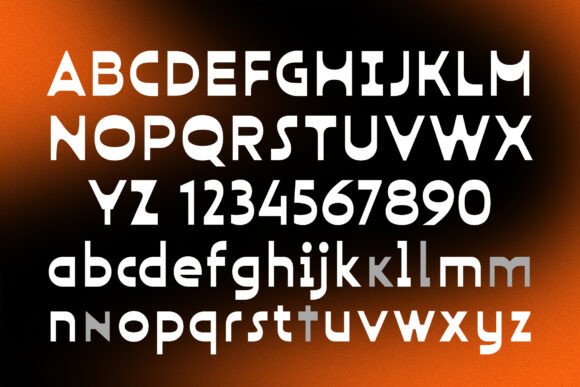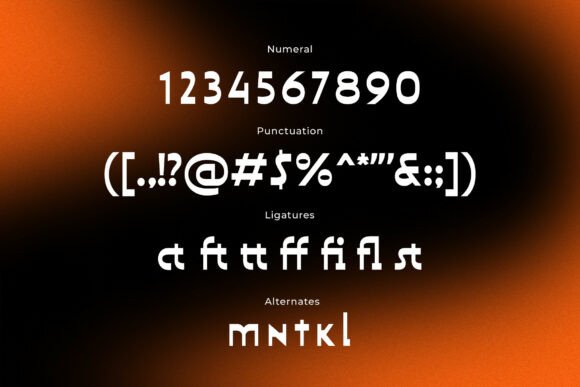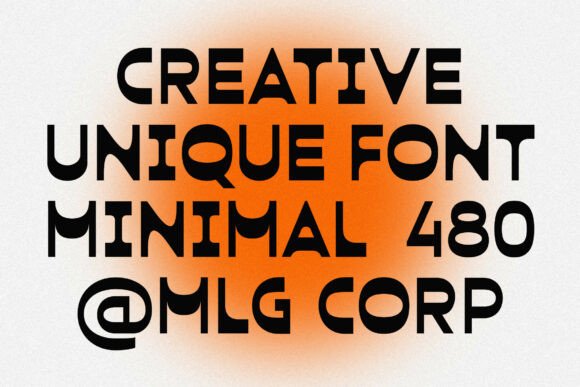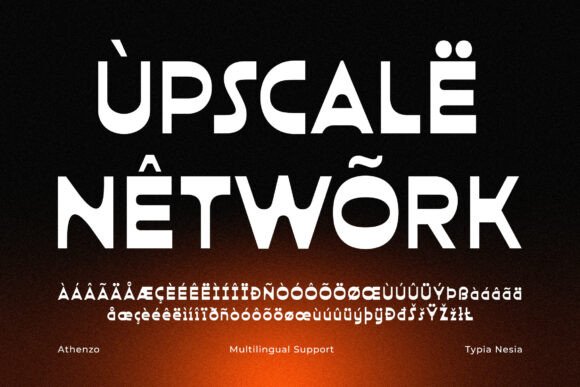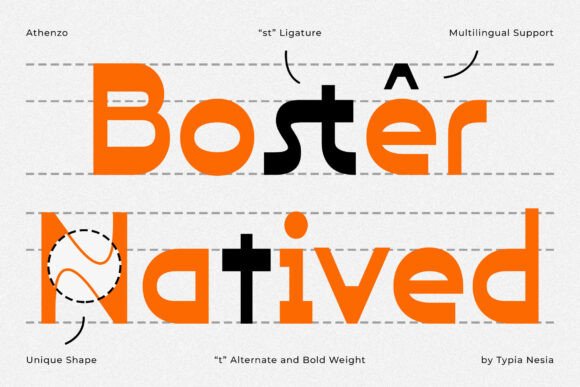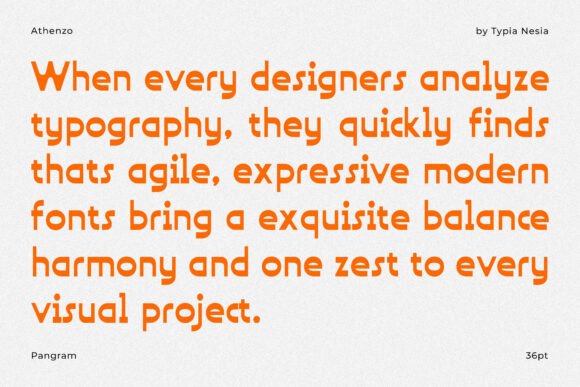
Unlock Your Creativity with the Altenzo Font
Have you ever been stuck in a creative rut, scrolling through font libraries and feeling like nothing stands out? You know, that moment when you’re searching for the perfect font to elevate your design, but everything looks the same? That’s when I discovered the Altenzo Font, a game-changer that’s been making waves in the design community.
The Altenzo Font is a bold, modern display sans-serif font designed to grab attention. Its unique reverse contrast structure and geometric letterforms make it the ideal choice for future-forward, aggressive, and edgy branding. Whether you’re working on a project that requires a unique statement or a bold headline, the Altenzo Font is sure to deliver. With its PUA encoding and wide range of special characters, this font is a valuable tool for designers looking to push the boundaries of their creativity.
Altenzo Font Key Features
- Font Family: Altenzo Font is a sans-serif font family designed for digital use, available in multiple weights.
- Unique Characteristics: The Altenzo Font features a clean, modern design with a high x-height, making it highly legible in digital environments.
Designer Review: Altenzo Font
I recently had the chance to work with Altenzo Font, and I must say, it’s a decent option for typography enthusiasts. Here’s what I liked and didn’t like about it.
- The font’s unique blend of modern and vintage elements creates a striking visual identity.
- Altenzo Font is highly customizable, allowing designers to fine-tune the spacing, letterforms, and weights to suit their project’s needs.
- The font’s extensive character set supports multiple languages, making it a great choice for international projects.
- Altenzo Font may be too bold for some designs, making it challenging to use in text-heavy content.
- The font’s uniqueness can be a double-edged sword – while it stands out, it may not be to everyone’s taste.
- Some designers may find the font’s customizability overwhelming, especially for those without extensive design experience.
Overall, I’d say Altenzo Font is a solid choice for designers looking for a distinctive, customizable font. While it may not be perfect for every project, it’s definitely worth considering for those seeking a unique visual identity.
Use Altenzo Font for:
- Headings and titles for a modern and sleek look.
- Body text for a clean and readable font.
- Branding and marketing materials for a unique and recognizable font.
Alternatives to Altenzo Font for Designers
Open Sans is a clean and modern sans-serif font, ideal for digital interfaces and web applications. It’s highly legible and suitable for large blocks of text. Use Open Sans when you need a neutral and approachable font.
Compared to Altenzo Font, Open Sans has a more minimalist and subtle design. While Altenzo Font has a slightly condensed feel, Open Sans is more evenly spaced, making it better suited for large text bodies.
Montserrat is a geometric sans-serif font inspired by urban typography. It’s perfect for titles, headings, and short paragraphs. Use Montserrat when you need a bold and modern font that adds visual interest.
Compared to Altenzo Font, Montserrat has a more geometric and angular design, making it more suitable for headings and titles. Altenzo Font, on the other hand, has a more rounded and friendly feel, making it better suited for body text.
What is the character set and language support for Altenzo Font?
Altenzo Font supports a wide range of languages, including Latin, Cyrillic, and Greek alphabets. The font includes over 1000 glyphs, covering a broad range of characters and symbols. This makes it an excellent choice for designers working on international projects or requiring a high level of linguistic flexibility.